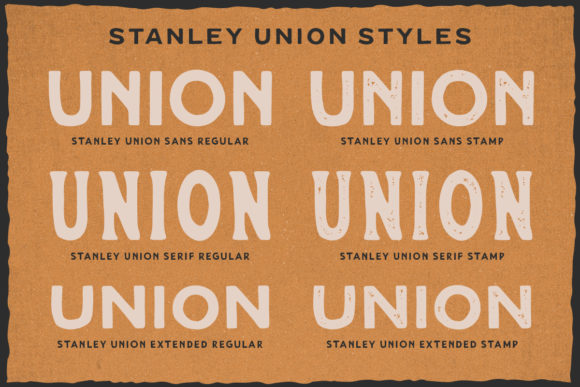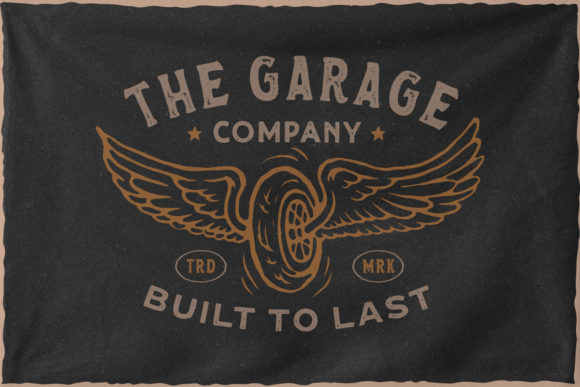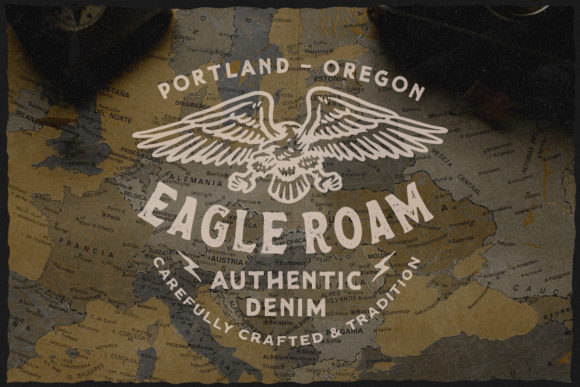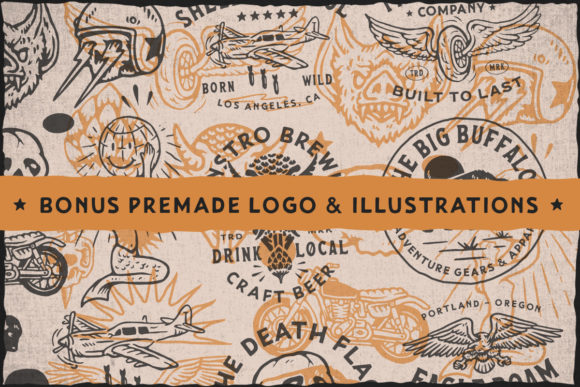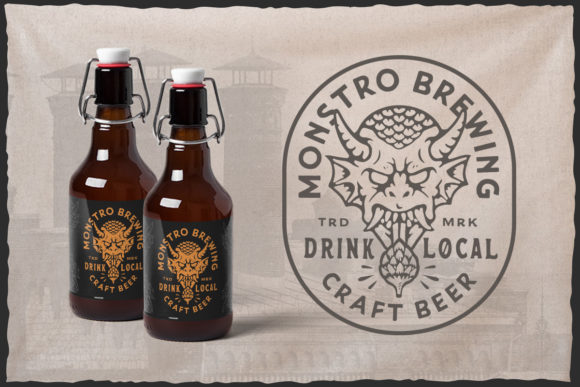
Stanley Union Font
Stanley Union is a font bundle consisting of serif, sans serif, extended sans, and dingbats. The characters look authentic and will surely add a natural feel to any crafty idea! Works best for items that need a vintage aesthetic and an organic feel.